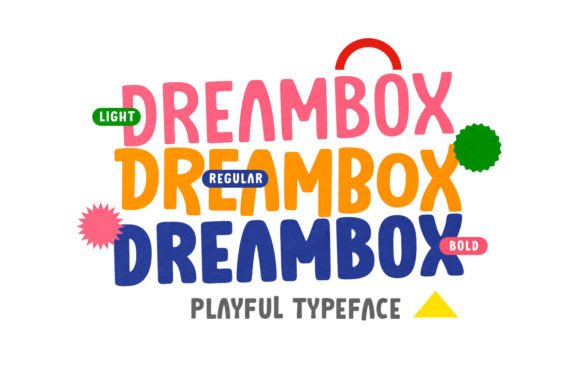
Dreambox Font: Adding a Touch of Whimsy to Your Designs
Are you looking for a font that can bring a sense of joy and creativity to your projects? Look no further than the Dreambox font! This playful and whimsical font family is designed to add a touch of fun to your designs, making it perfect for children’s books, playful branding, party invitations, and more.
The Characteristics of Dreambox Font
The Dreambox font is characterized by its friendly curves and lively character. Its unique design makes it stand out from other fonts, giving it a distinctive and memorable look. The font is available in three weights: Light, Regular, and Bold, allowing you to choose the one that best suits your design needs or use them together to create visual interest.
The Dreambox font is incredibly versatile and can be used in a wide range of projects. Here are some ideas to get you started:
- Children’s Books: The playful and whimsical nature of the Dreambox font makes it perfect for children’s books, adding a touch of fun and imagination to your story.
- Playful Branding: If you’re looking to create a brand that’s fun and youthful, the Dreambox font is a great choice. Its lively character and friendly curves make it perfect for brands that want to appeal to a younger audience.
- Party Invitations: Add a touch of whimsy to your party invitations with the Dreambox font. Its playful design makes it perfect for birthday parties, baby showers, and other celebrations.
- Any Design that Needs a Touch of Fun: Whether you’re designing a poster, flyer, or social media graphic, the Dreambox font is a great choice if you want to add a touch of fun and personality to your design.
Multi-Language Support
The Dreambox font is designed to support multiple languages, making it a great choice for designers who work with international clients or want to create designs that can be used globally. This feature is especially useful for designers who work on projects that require text in different languages.
Why Choose the Dreambox Font?
There are many reasons why you should choose the Dreambox font for your next project. Here are a few:
- Unique Design: The Dreambox font has a unique and distinctive design that will make your projects stand out.
- Versatility: The font is incredibly versatile and can be used in a wide range of projects.
- Multi-Language Support: The font supports multiple languages, making it a great choice for international projects.
Tips for Using the Dreambox Font
Here are a few tips for using the Dreambox font:
- Use it with a Bold Color: The Dreambox font looks great with bold colors, so don’t be afraid to experiment with different color combinations.
- Mix and Match Weights: Use the different weights of the Dreambox font to create visual interest and add depth to your design.
- Pair it with Other Fonts: The Dreambox font can be paired with other fonts to create a unique and interesting look.
The Dreambox font is a playful and whimsical font family that’s perfect for designers who want to add a touch of fun and creativity to their projects. With its friendly curves, lively character, and multi-language support, it’s a great choice for a wide range of projects, from children’s books to playful branding. So why not give it a try and see how it can bring a sense of joy and creativity to your designs?